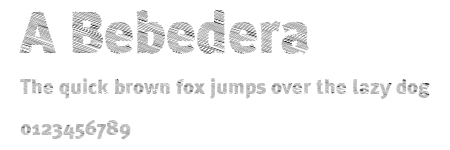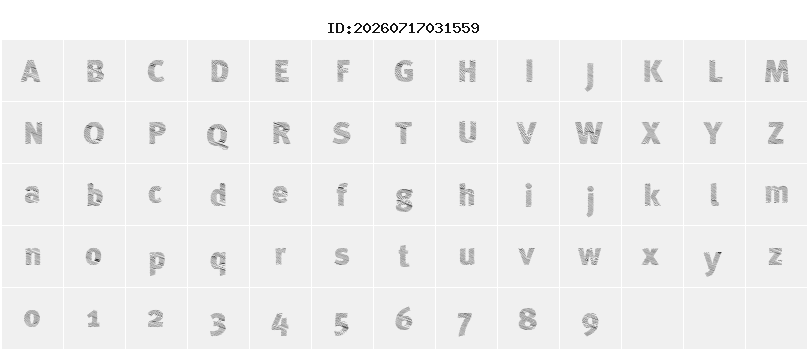
A Bebedera Preview
• Font Name: A Bebedera
• Font Style: Heavy
• Full Font Name: A Bebedera Heavy
• Designer: deFharo
About A Bebedera.ttf
A Bebedera.ttf is a modern, elegant sans-serif font designed for ultimate readability and visual harmony. Perfect for branding, headlines, web design, and print materials.